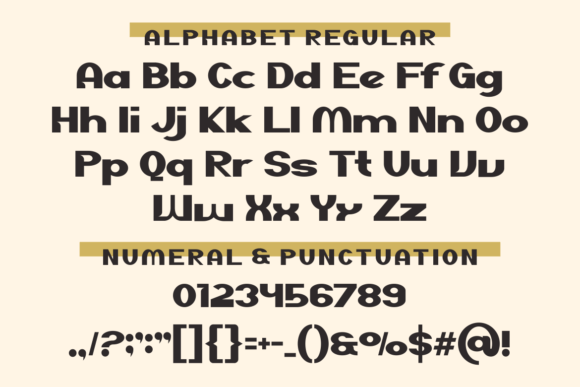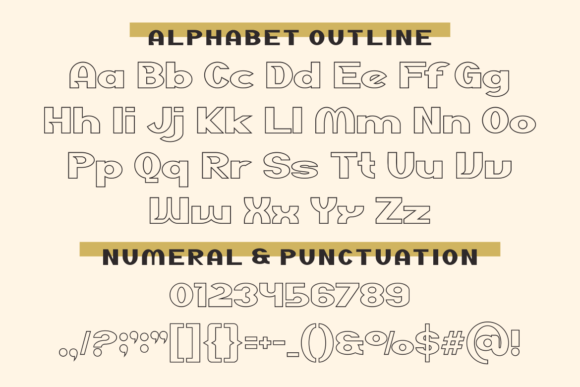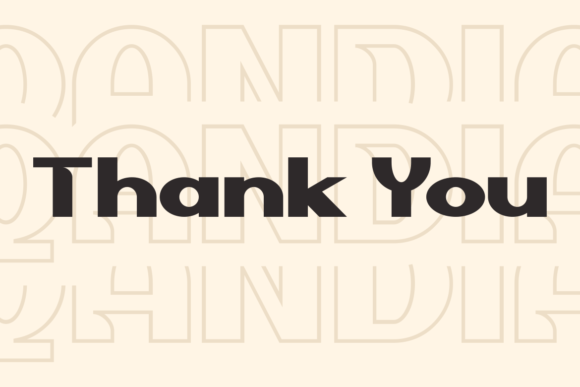
Introduction to Qandia Font
As designers, we’ve all been there – staring at a blank canvas, trying to bring our creative vision to life. But what happens when the perfect font is the missing piece that sets your project apart? Enter the Qandia Font, a game-changing design resource that adds a touch of sophistication to any project.
With its bold, attractive letterforms and clean lines, Qandia Font is the perfect addition to your design toolkit. Whether you’re working on a logo, headline, or short phrase, this high-quality font is sure to elevate your creative project. And the best part? It’s available for free download, making it an accessible resource for designers of all levels.
From transparent backgrounds to high-quality typography, the Qandia Font offers a range of features that make it a valuable asset for designers. So why settle for a generic font when you can add a touch of personality to your project with the Qandia Font?
Key Features of Qandia Font
- High-quality design resource suitable for various creative projects, including graphics, logos, and digital art.
- Unique, modern design with a transparent background, allowing for easy layering and customization in your design projects.
- Supports various languages, making it a versatile design resource for global creative projects.
- Perfect for designers seeking a modern, elegant font for their creative projects, including branding, advertising, and digital media.
Honest Review: Qandia Font
As a designer, I’m always on the lookout for high-quality design resources to elevate my creative projects. Recently, I stumbled upon the Qandia Font, and I’m excited to share my honest review with you.
- ✨ Unique and stylish design: The Qandia Font has a distinctive look that sets it apart from other fonts. Its elegant lines and subtle curves make it perfect for a wide range of creative projects.
- ⚠️ Limited character set: While the font is free, the character set is limited, which may not be suitable for complex projects or those requiring specific characters.
- ⚠️ Not ideal for large text: Due to its elegant design, the Qandia Font may not be the best choice for large text sizes, as it can become difficult to read.
Overall, the Qandia Font is a great addition to any designer’s toolkit. While it has its limitations, its unique design and free download make it an excellent resource for creative projects. I’d recommend it for smaller-scale projects or those requiring a touch of elegance.
The Qandia Font is a high-quality, free download that can elevate your creative project with its unique and stylish design. To get the most out of it, make sure to check the transparent background to ensure seamless integration with your visuals.
For optimal results, use the Qandia Font in headings and titles to create a visually appealing hierarchy. It’s also perfect for creating eye-catching graphics, social media posts, and promotional materials.